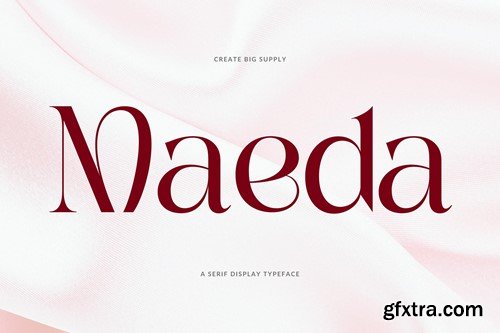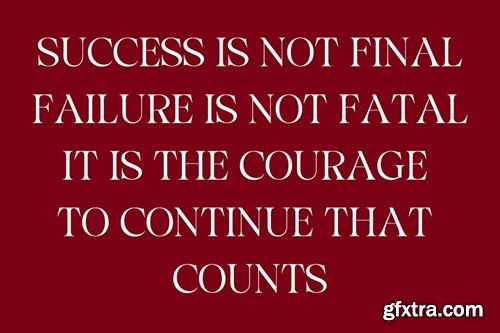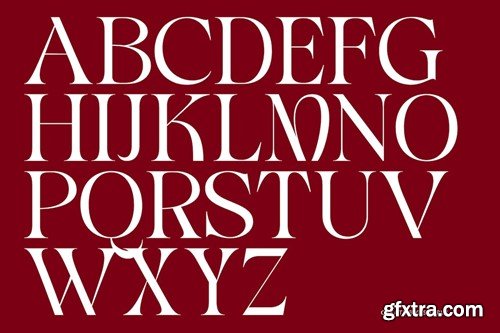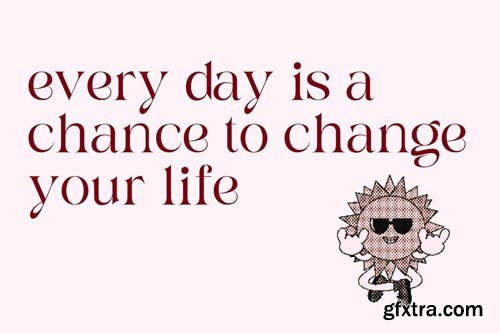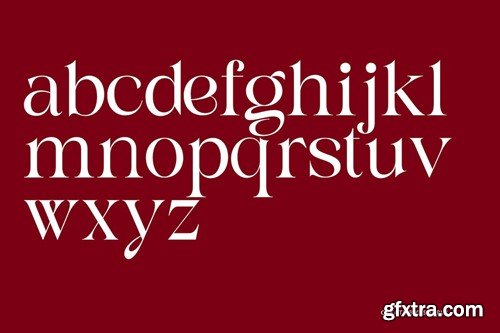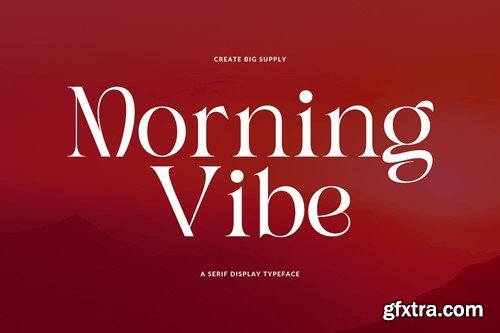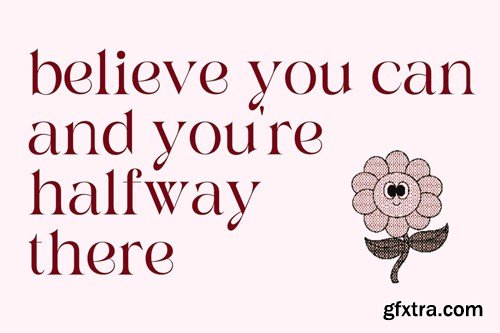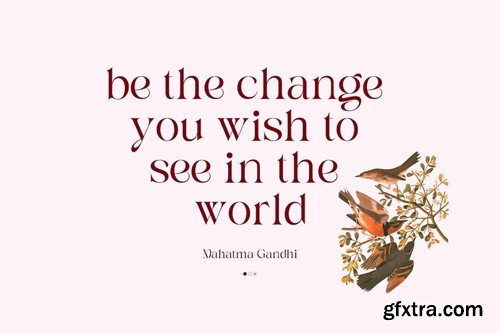
Maeda features both uppercase and lowercase characters, providing versatility and flexibility for a variety of design applications. Whether you're designing elegant branding materials, sophisticated editorial layouts, or captivating signage, Maeda's unique serif style makes a statement that captures attention. With a comprehensive set of numbers and punctuations, Maeda ensures clear and effective communication of your message across different platforms and mediums. Its multilingual support allows you to reach audiences around the world seamlessly, making it ideal for global projects. Maeda's PUA Encoding simplifies access to special characters, enabling you to unlock additional design possibilities effortlessly. Elevate your projects with the timeless elegance and distinctiveness of Maeda, and let your creativity shine. Explore Your Font Collection today to discover the full potential of Maeda and enhance your designs with its unique serif display font. File Format Include: